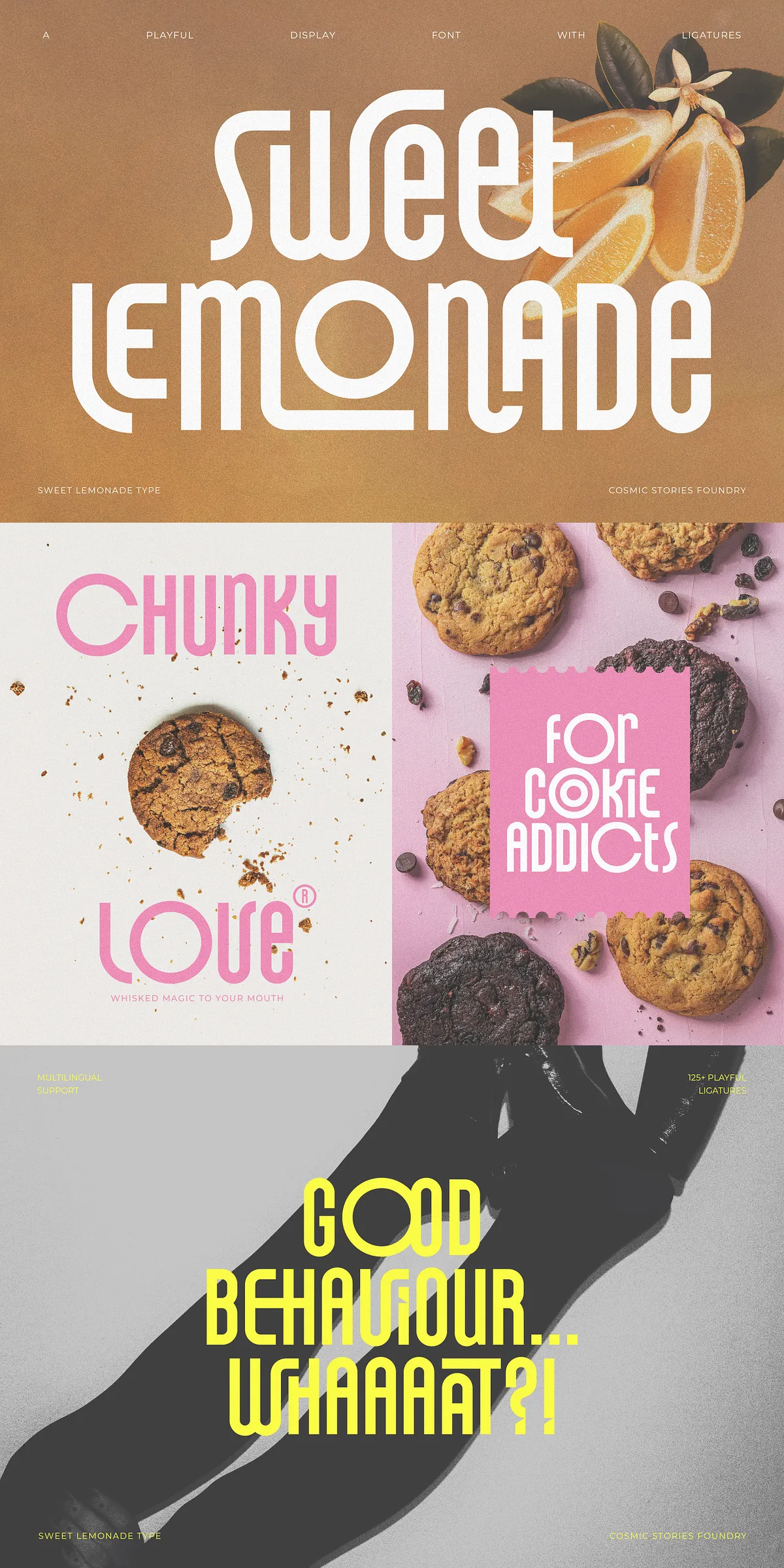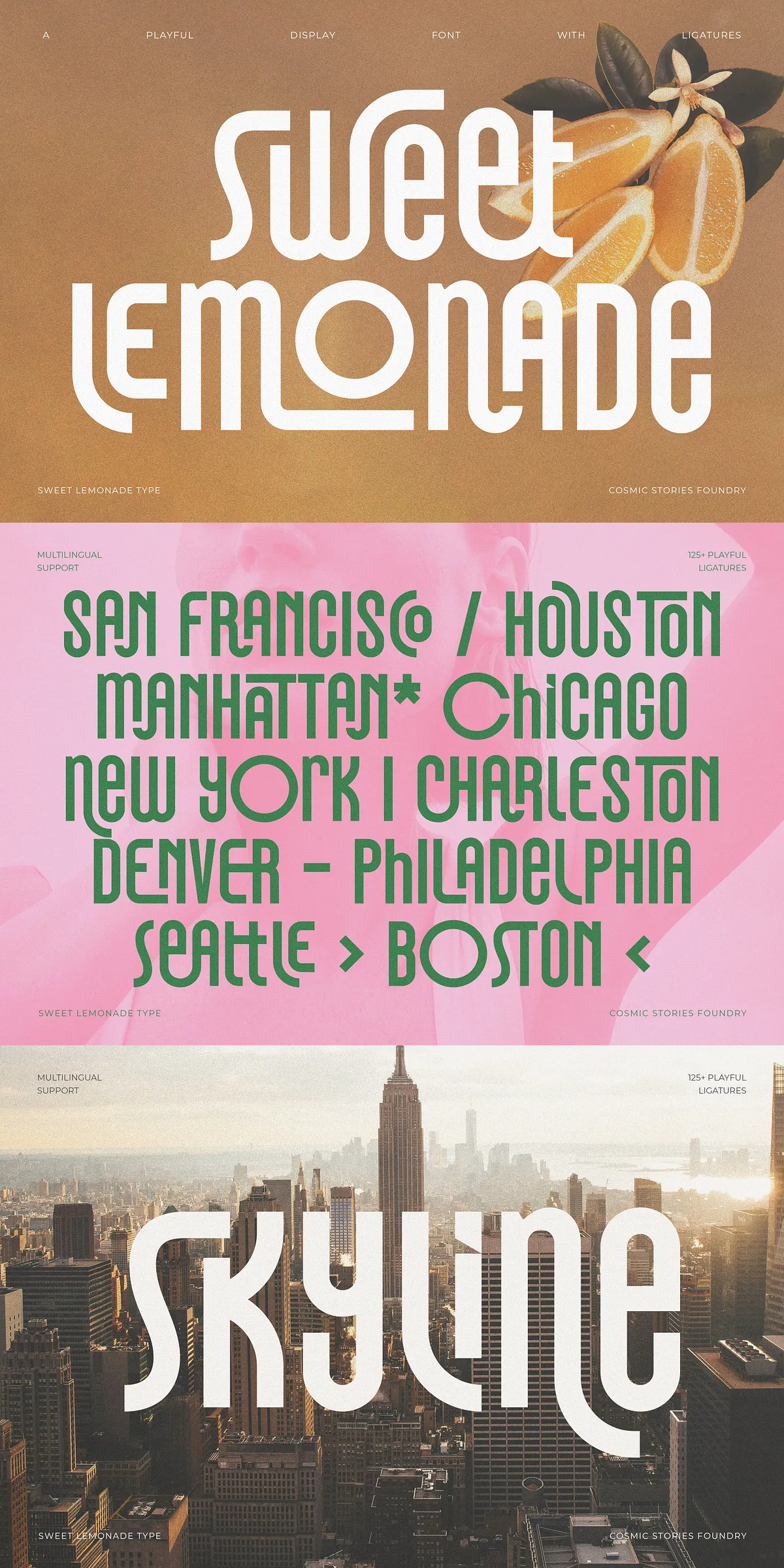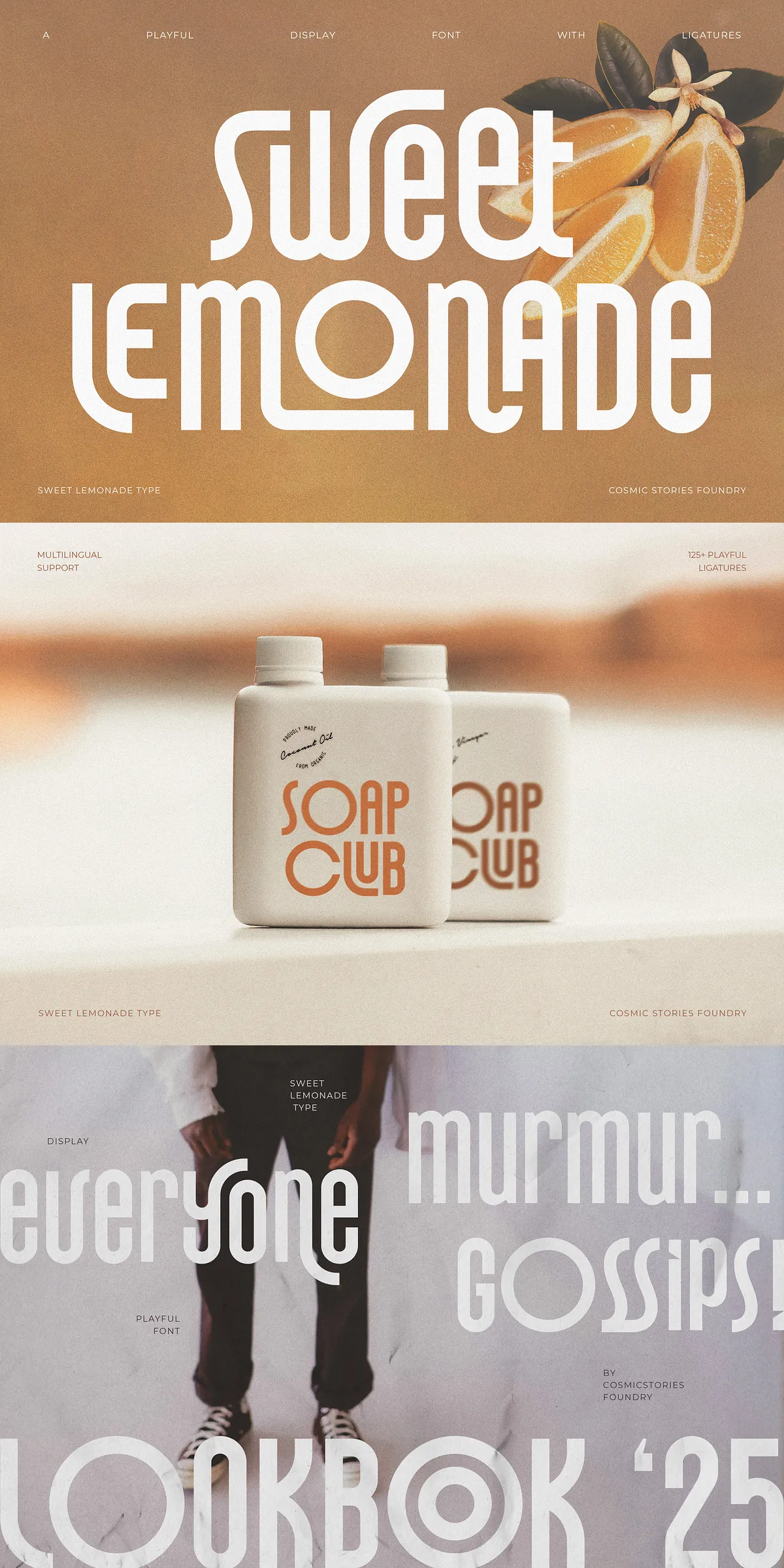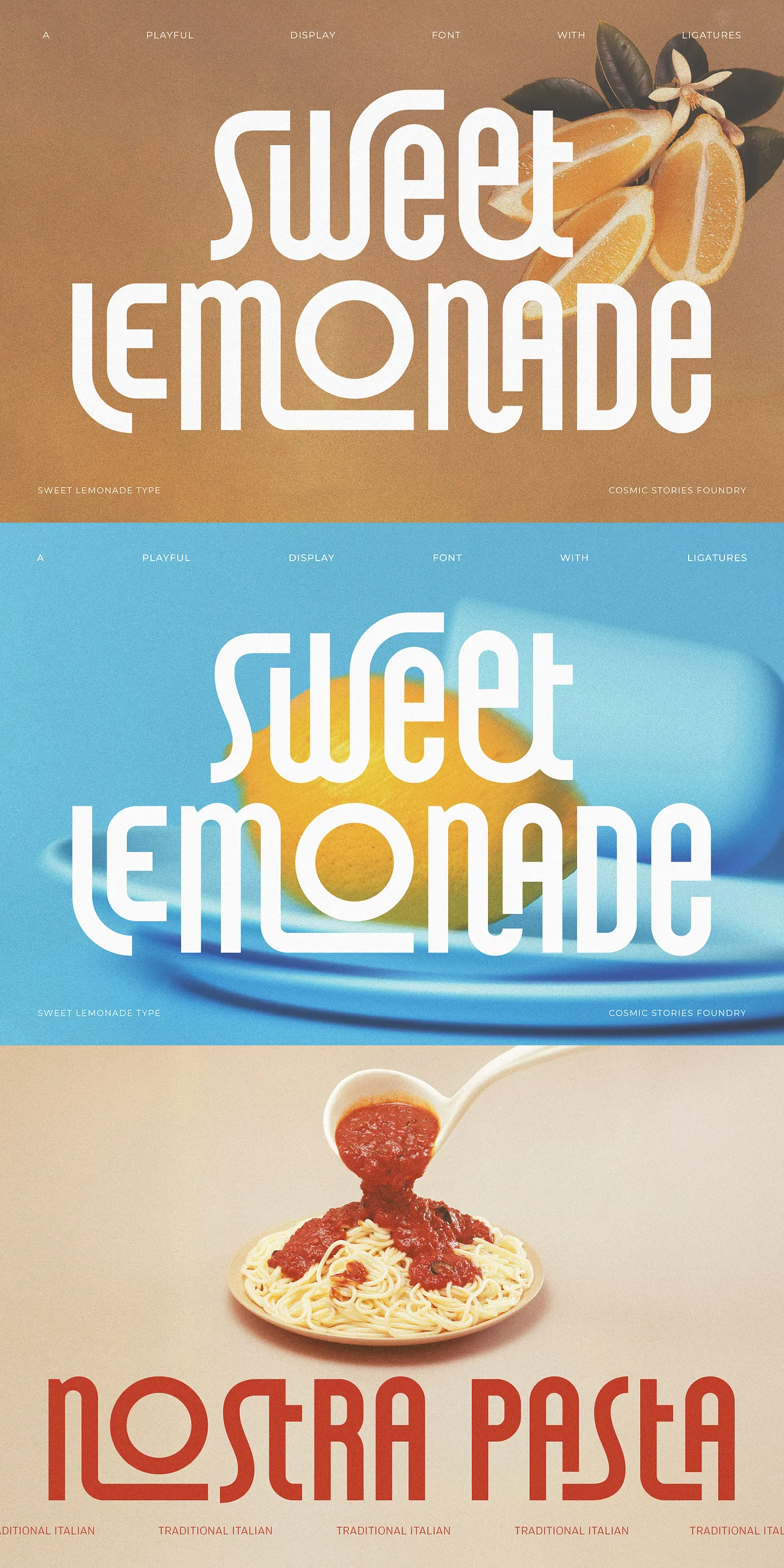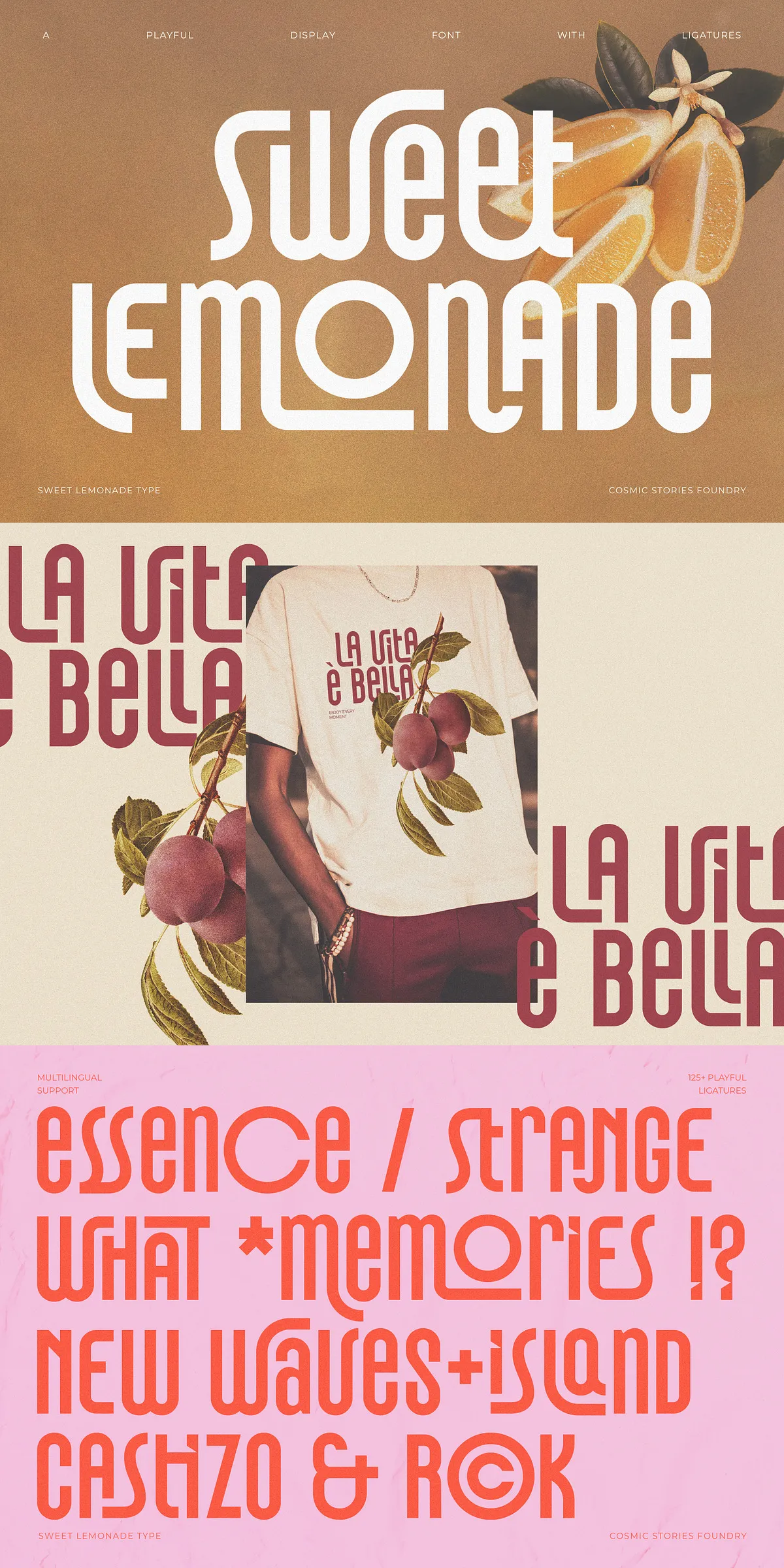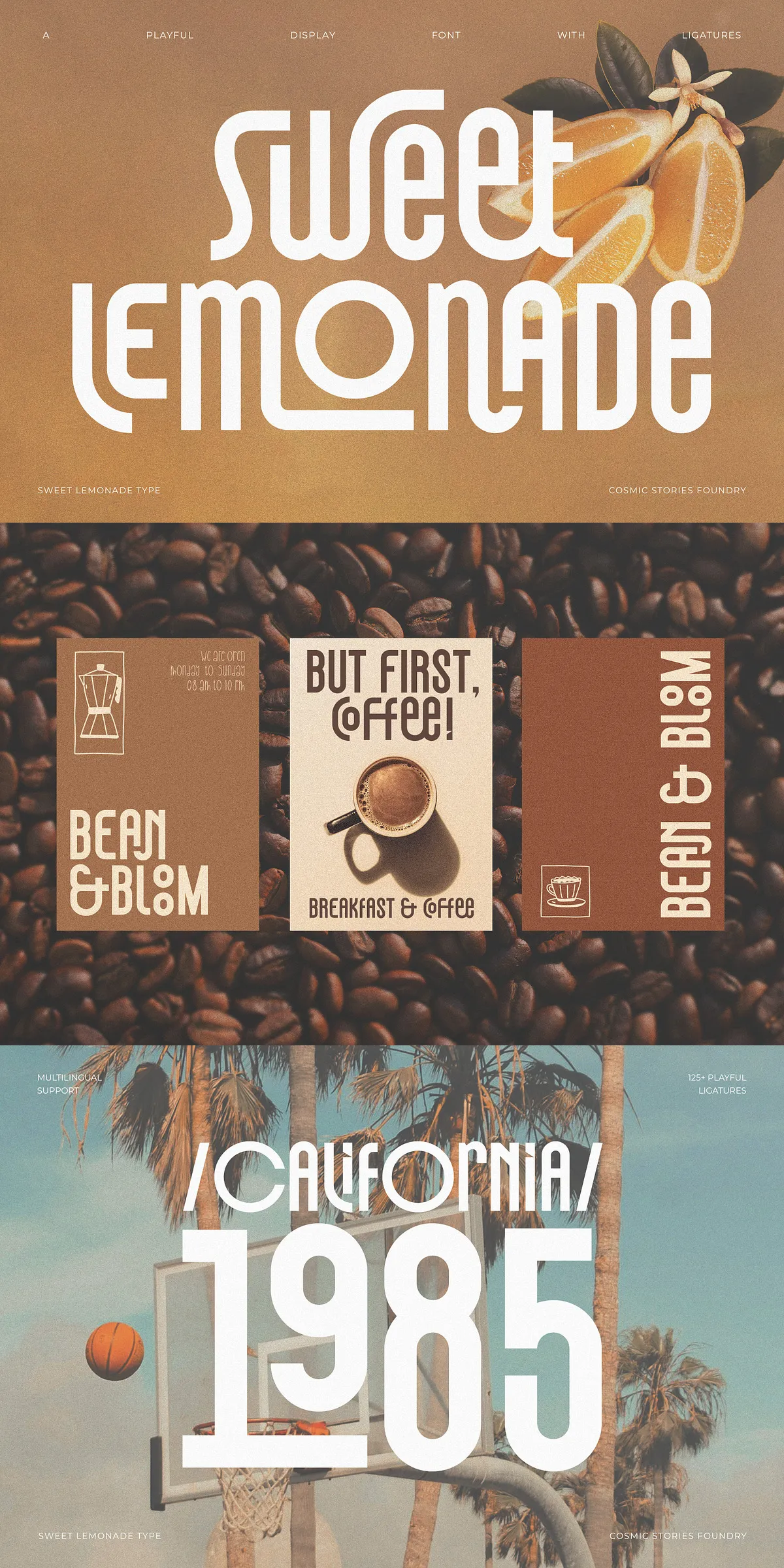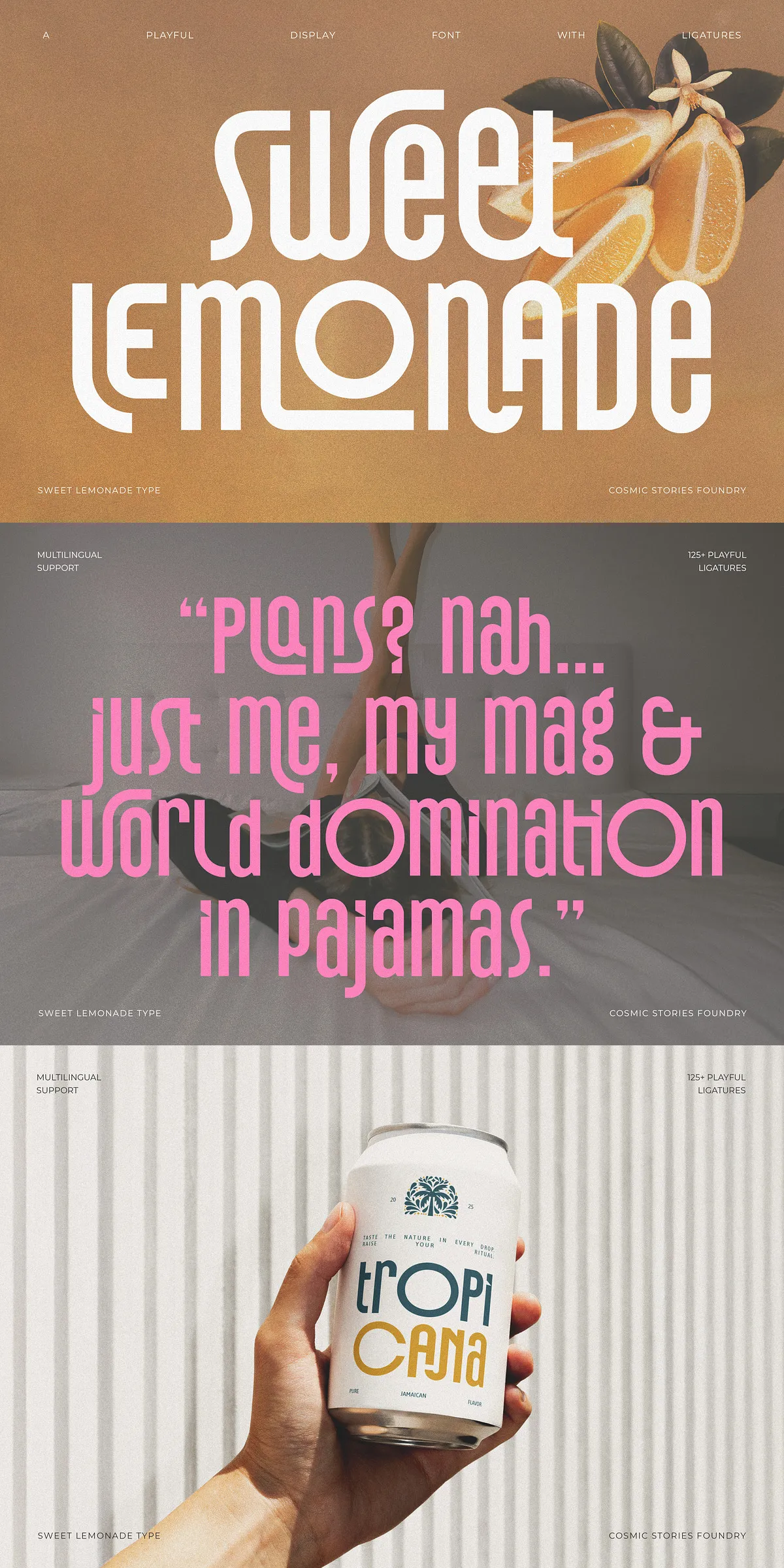
Meet Sweet Lemonade Type—a bold, tall, and brilliantly expressive display font that blends vintage nostalgia with razor-sharp modernity. This isn’t just a typeface; it’s a creative spark waiting to ignite your next big project. With a spirited personality, sweeping proportions, and an impressive arsenal of 125+ OpenType ligatures, Sweet Lemonade Type turns ordinary text into unforgettable visual experiences. Whether you’re crafting a brand identity, designing a poster, or building a social media campaign, this font brings movement, fun, and flair to every letter.
Why Sweet Lemonade Type Is a Game-Changer in Modern Typography
Think of Sweet Lemonade Type as the life of the party—effortlessly cool, full of rhythm, and impossible to ignore. Inspired by the vibrant lettering of mid-20th-century signage and retro advertising, this font updates classic aesthetics with clean, contemporary proportions. Its tall, slender forms and exaggerated letterforms give it a dynamic presence on both digital and print surfaces. The result? A typeface that’s bold enough to dominate a billboard, yet refined enough to grace a luxury product wrap.
The Power Behind the Personality: What Makes It So Special?
- 125+ Unique OpenType Ligatures: From playful swashes to intricate merged characters, these ligatures allow for endless creative combinations—no two layouts ever look the same.
- Retro-Inspired Aesthetic, Modern Precision: The soft curves, rounded terminals, and lively forms pay homage to 1950s and 60s typography, while the tight kerning and clean design ensure it performs flawlessly in today’s high-resolution environments.
- Multilingual Support: Fully equipped for Western, Central, and Eastern European languages, including diacritical marks and special characters—perfect for global brands and international campaigns.
- Designed for High-Impact Visuals: Ideal for logos, packaging, editorial headlines, social media graphics, and promotional materials where standing out is everything.
Where Sweet Lemonade Type Truly Shines: Real-World Creative Applications
Sweet Lemonade Type isn’t just visually striking—it’s a powerhouse of functionality. Here’s where it transforms good designs into unforgettable ones:
Brand Identity & Logo Design
Create a logo that doesn’t just represent a name—it tells a story. This font’s playful yet sophisticated feel works wonders for food brands, lifestyle labels, boutique retailers, or creative agencies aiming to express energy, youth, and authenticity. Use its unique ligatures to craft custom wordmarks that feel handcrafted and one-of-a-kind.
Product Packaging & Branding
Make your product stand out on crowded shelves. The bold strokes and lively character set of Sweet Lemonade Type make it ideal for labels, bottle designs, and retail packaging—especially for drinks, snacks, cosmetics, and handmade goods where fun and freshness are key.
Editorial & Digital Content
Revitalize your magazine spreads, blog headers, or newsletter covers. Use Sweet Lemonade Type as a standout masthead or pull-quote to draw readers in and keep them engaged. Its rhythm and flow naturally guide the eye through text without sacrificing readability.
Social Media & Marketing Campaigns
Boost engagement with visually dynamic posts, story graphics, and banners. Whether it’s a birthday countdown, product launch teaser, or a viral campaign, this font delivers energy and personality in every character—perfect for platforms like Instagram, TikTok, and Facebook.
Sweet Lemonade Type is built for speed, adaptability, and professional use. Every file is optimized for high-quality rendering across devices and platforms, ensuring consistent, crisp results whether you’re working on screen or print.
With Sweet Lemonade Type, you’re not just choosing a font—you’re choosing a vibe: joyful, bold, nostalgic, and utterly modern. Use it to build identities that resonate, messages that linger, and visuals that get shared.